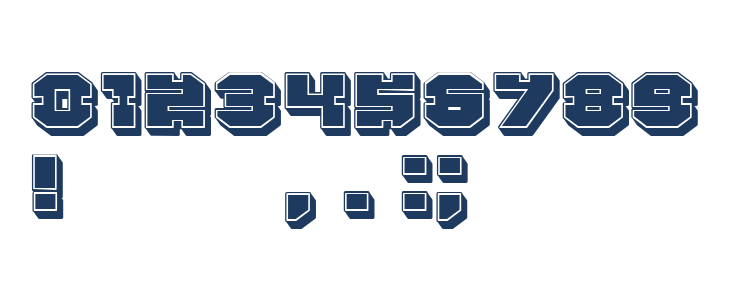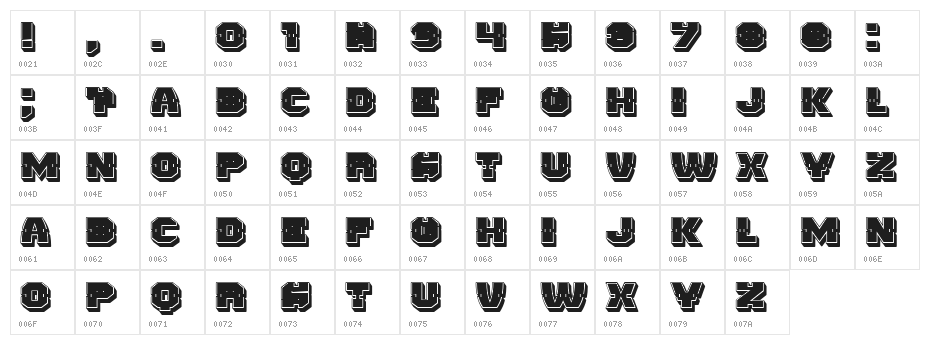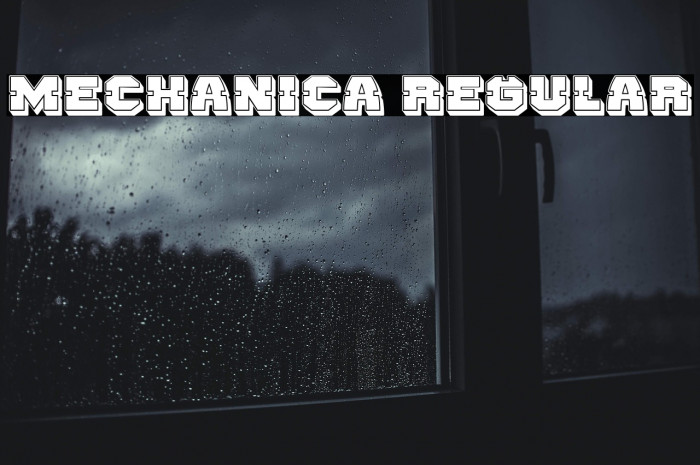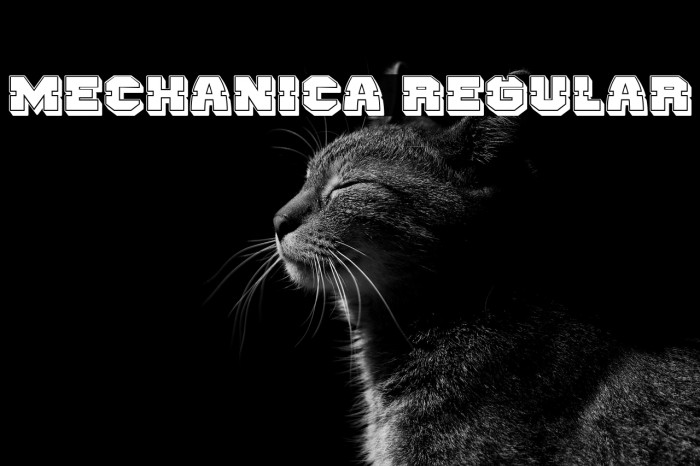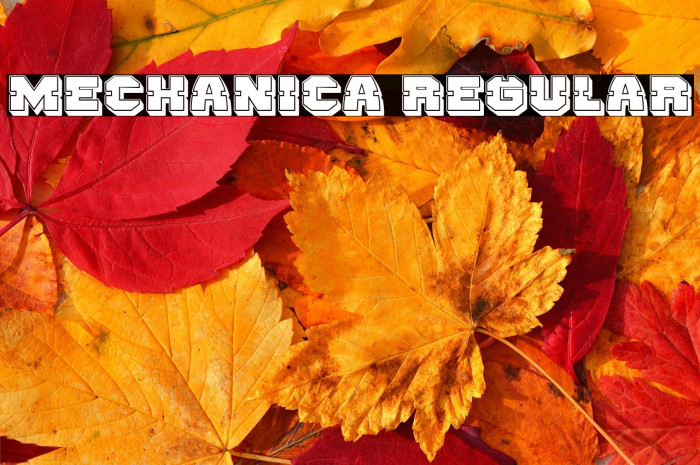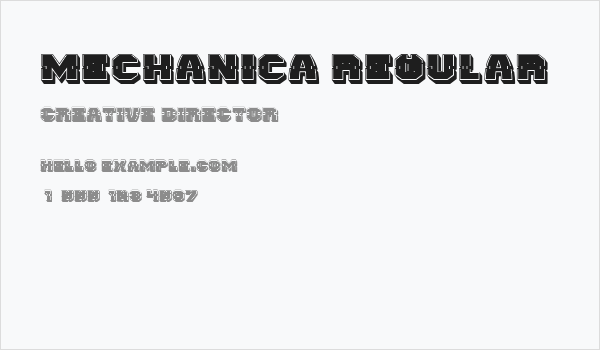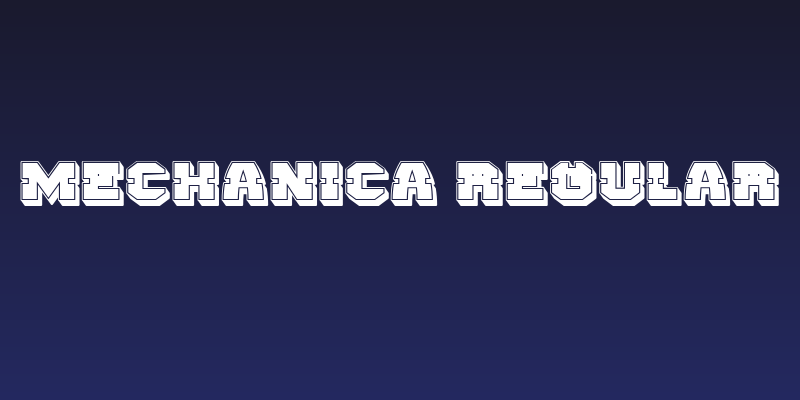
Mechanica Regular Font
Mechanica Regular Description
This font exhibits a bold, industrial design with a strong geometric structure. The characters are blocky and robust, featuring a three-dimensional effect that gives them a mechanical and futuristic appearance. The thick strokes and angular edges contribute to a sense of strength and stability, making it ideal for impactful headlines or branding that requires a modern, technological feel. The font maintains consistent proportions and spacing, ensuring readability despite its complex design. The inclusion of numbers and special characters complements the alphabet, providing a comprehensive set for various design needs.
Proposed ProjectsIdeal for technology branding, video game titles, industrial-themed posters, and modern logos.